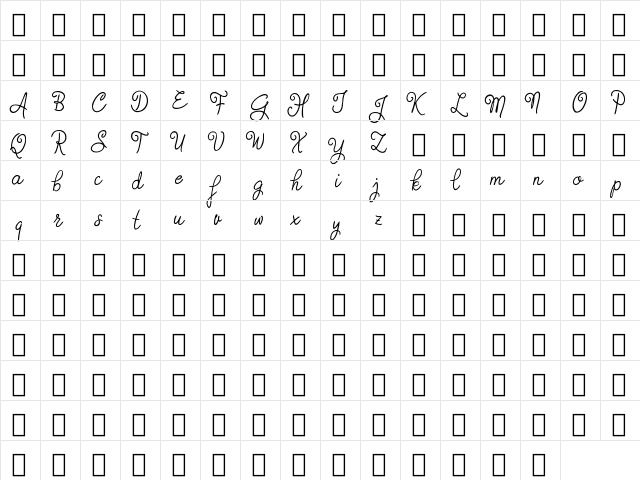
Judyth Demo Regular
Design Context for Judyth Demo Typeface
Judyth Demo offers clean, dependable letterforms without strong stylistic allegiance, making it a practical choice for designers who need flexibility.